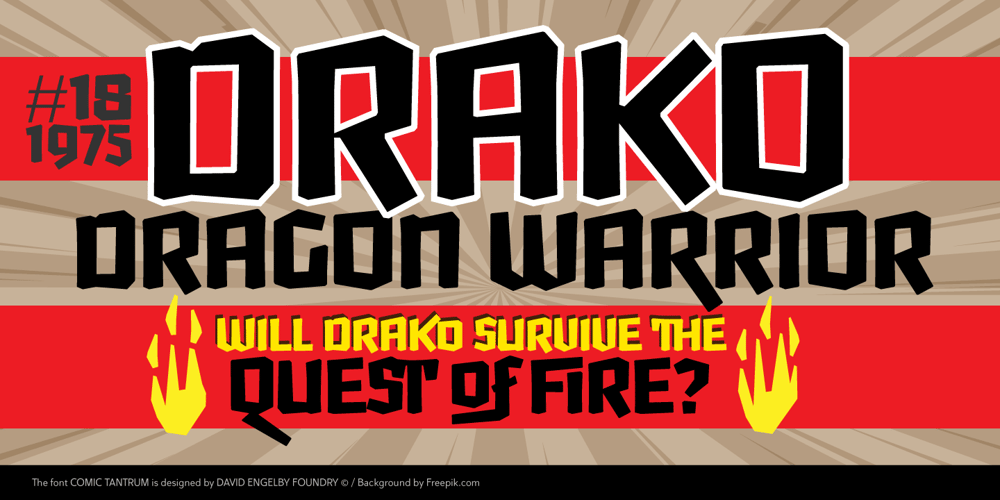
Comic Tantrum Font Family was designed by David Engelby and published by David Engelby Foundry. Comic Tantrum contains 3 styles and family package options. Comic Tantrum is a versatile font – you can use it for headline posters, for infographics, for web pages or other media, when you need an expressive comic font. And you can skew it and squeeze it. It also has many special designed alternates, swash versions and ligatures. Have fun!